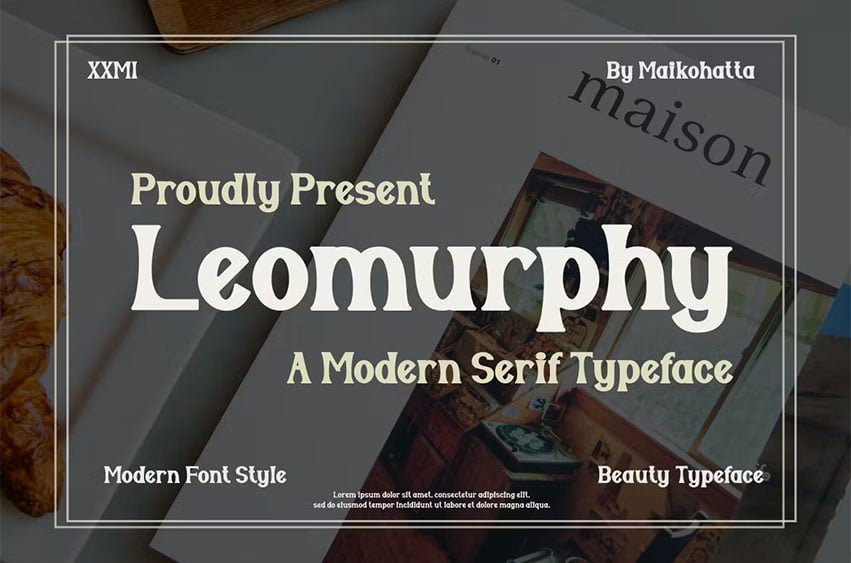
Leomurphy Font Modern Font is a bold and authentic display font. The font is suitable for any branding project like logo, template design, esport, and many more. outstanding in a wide range of contexts.